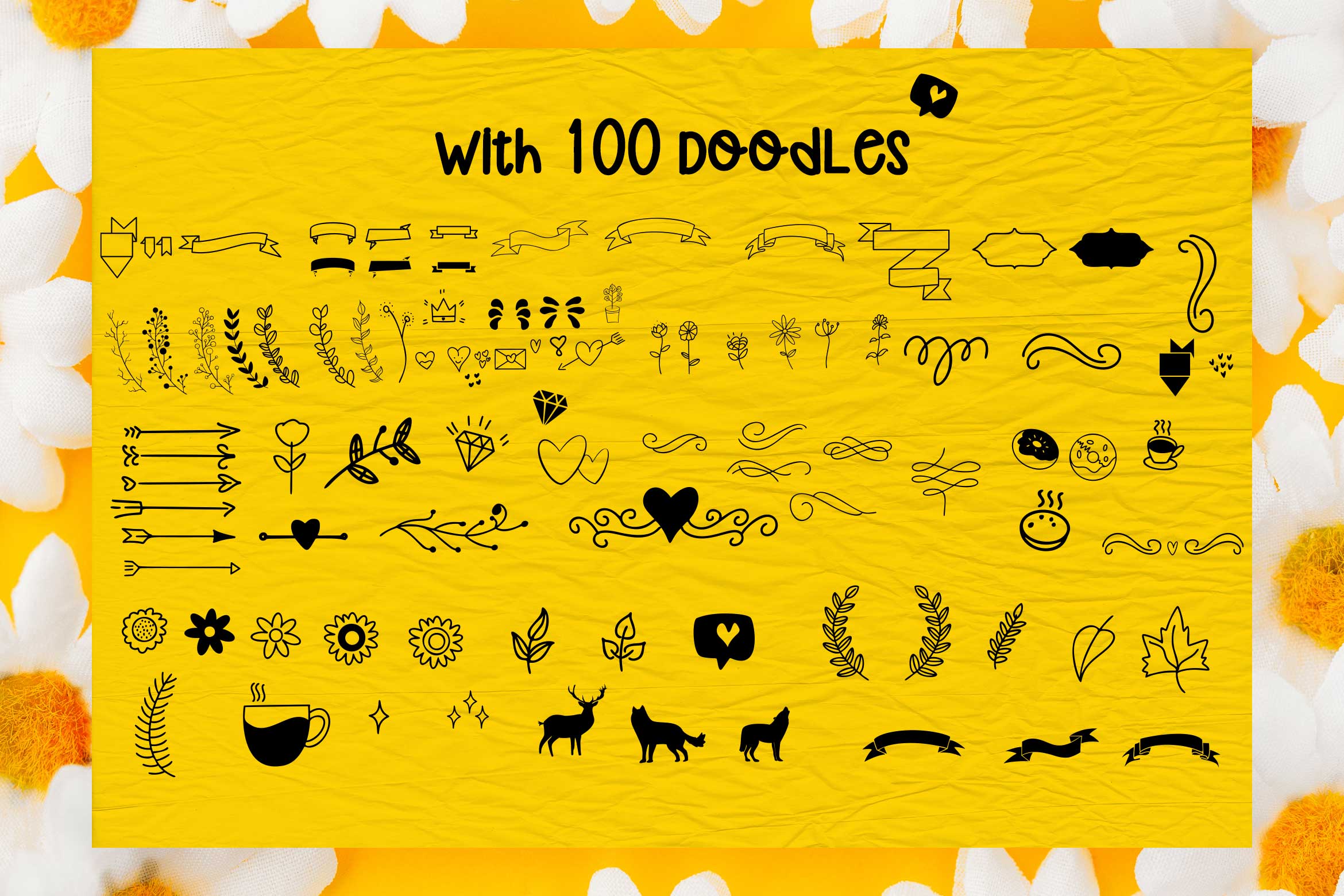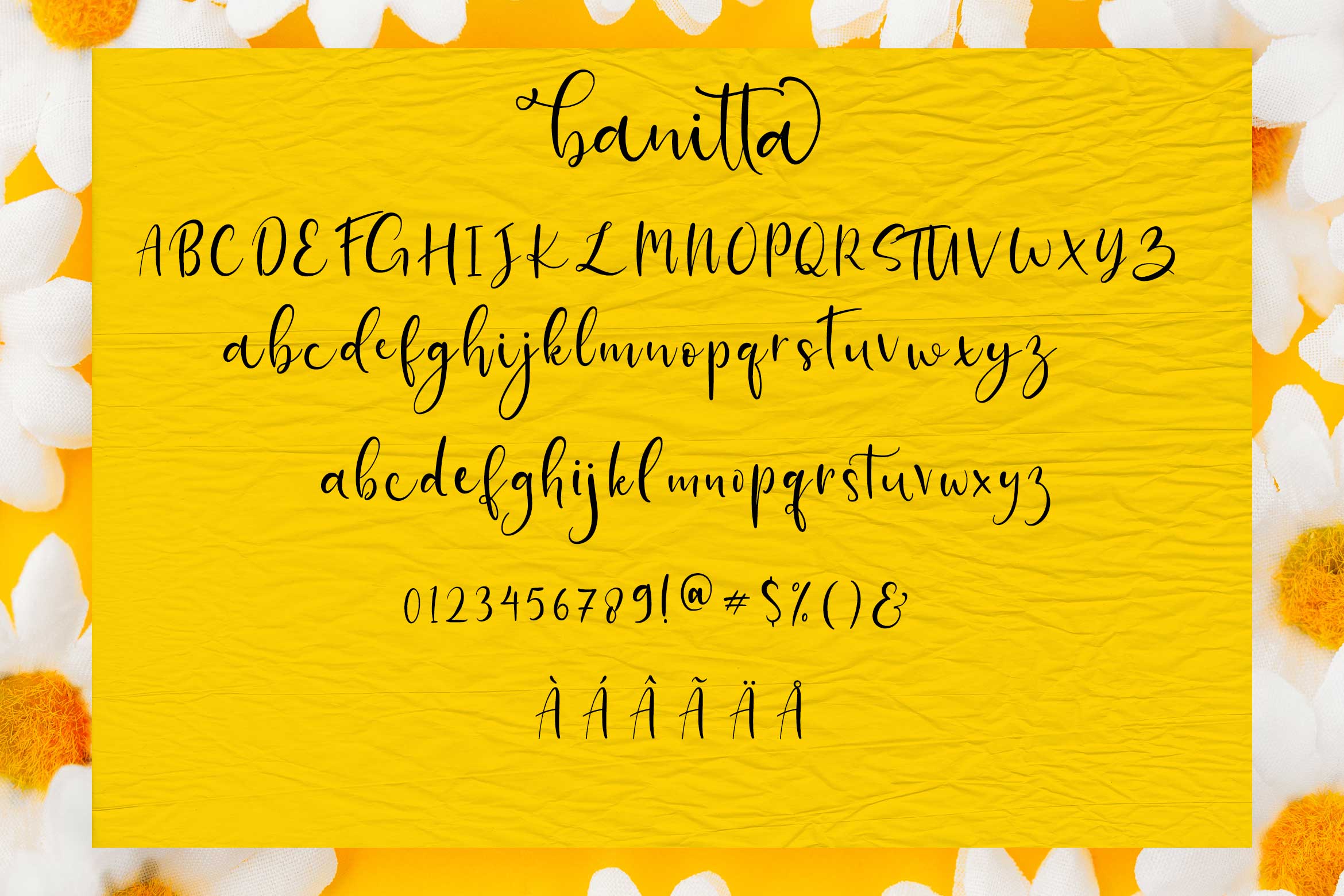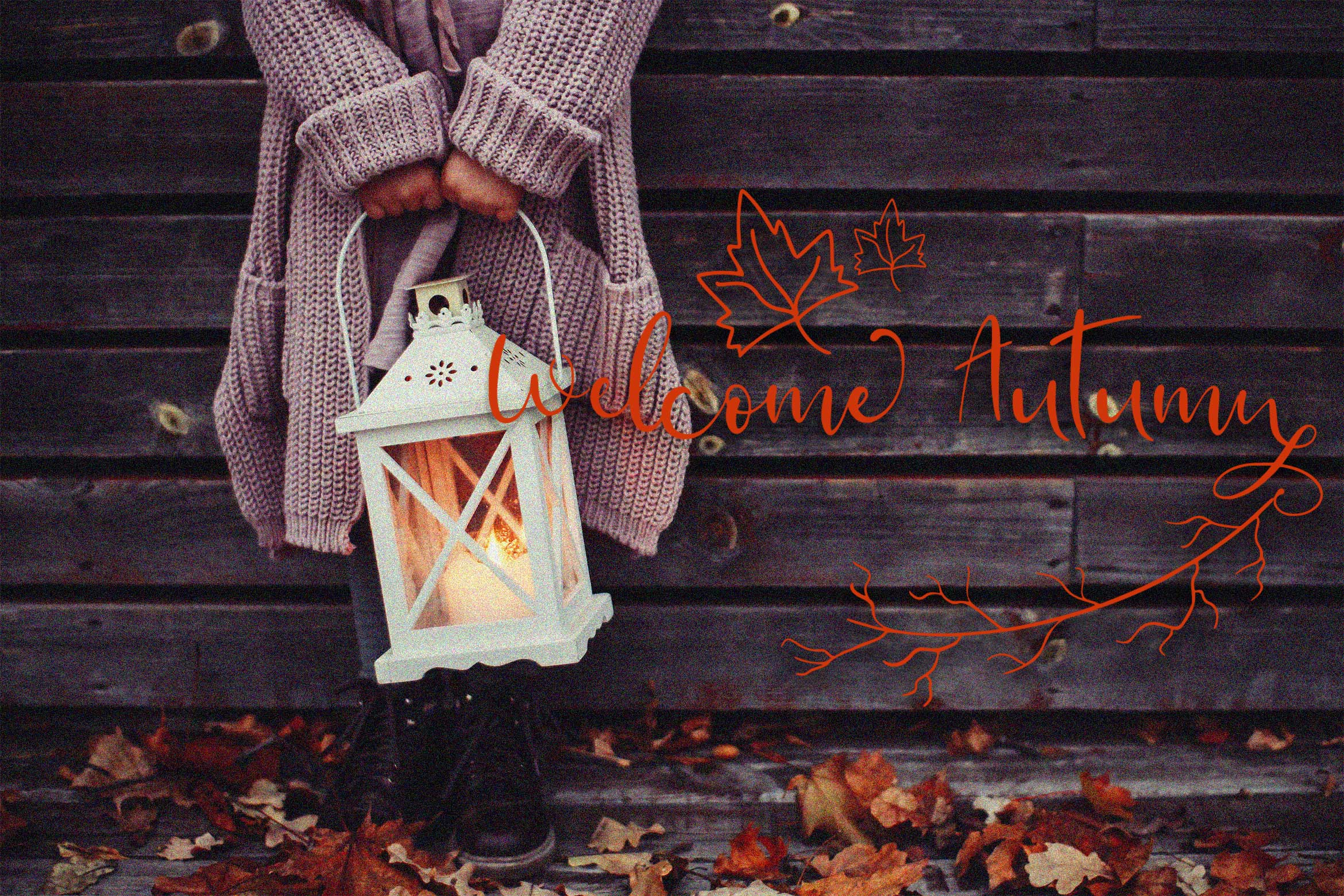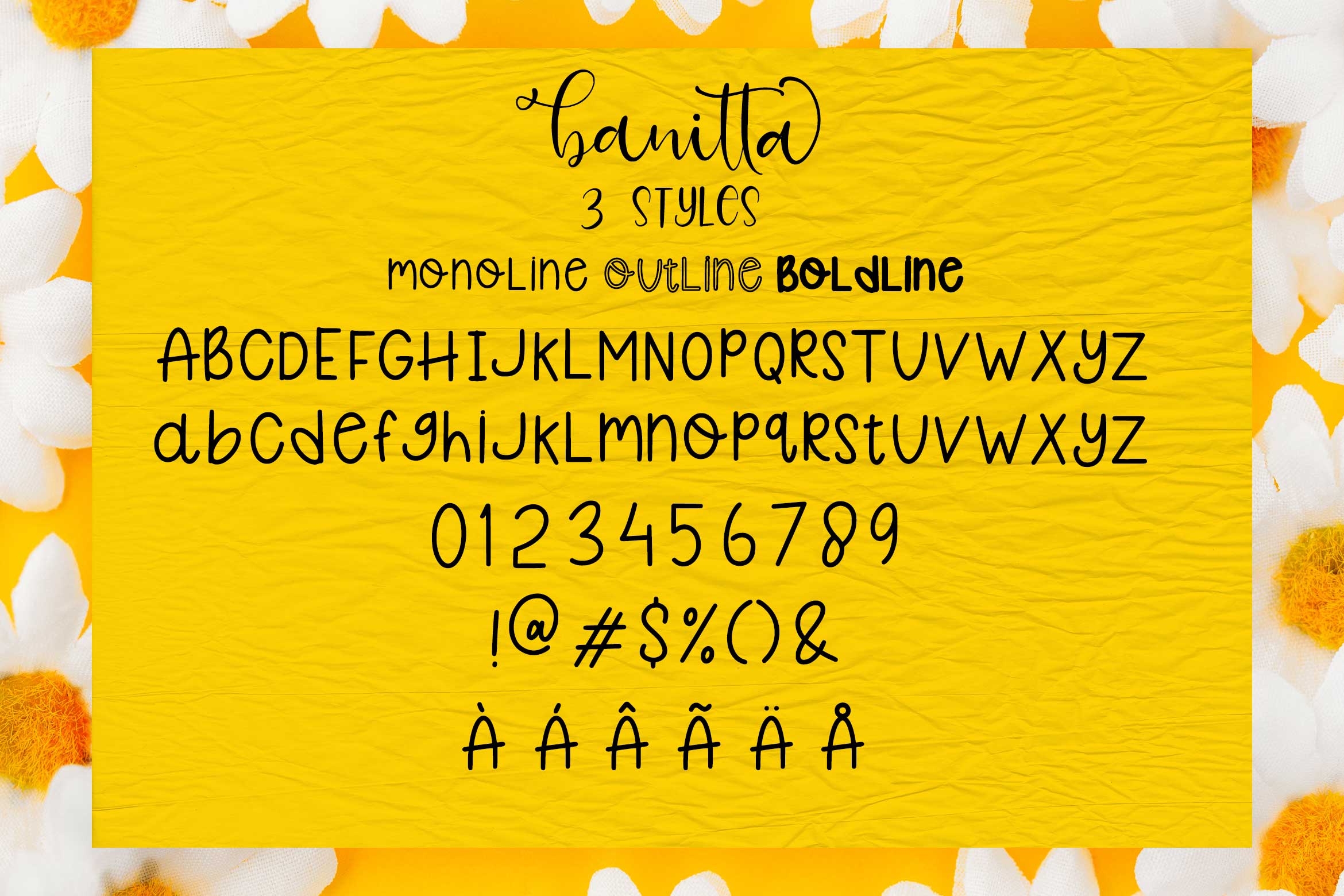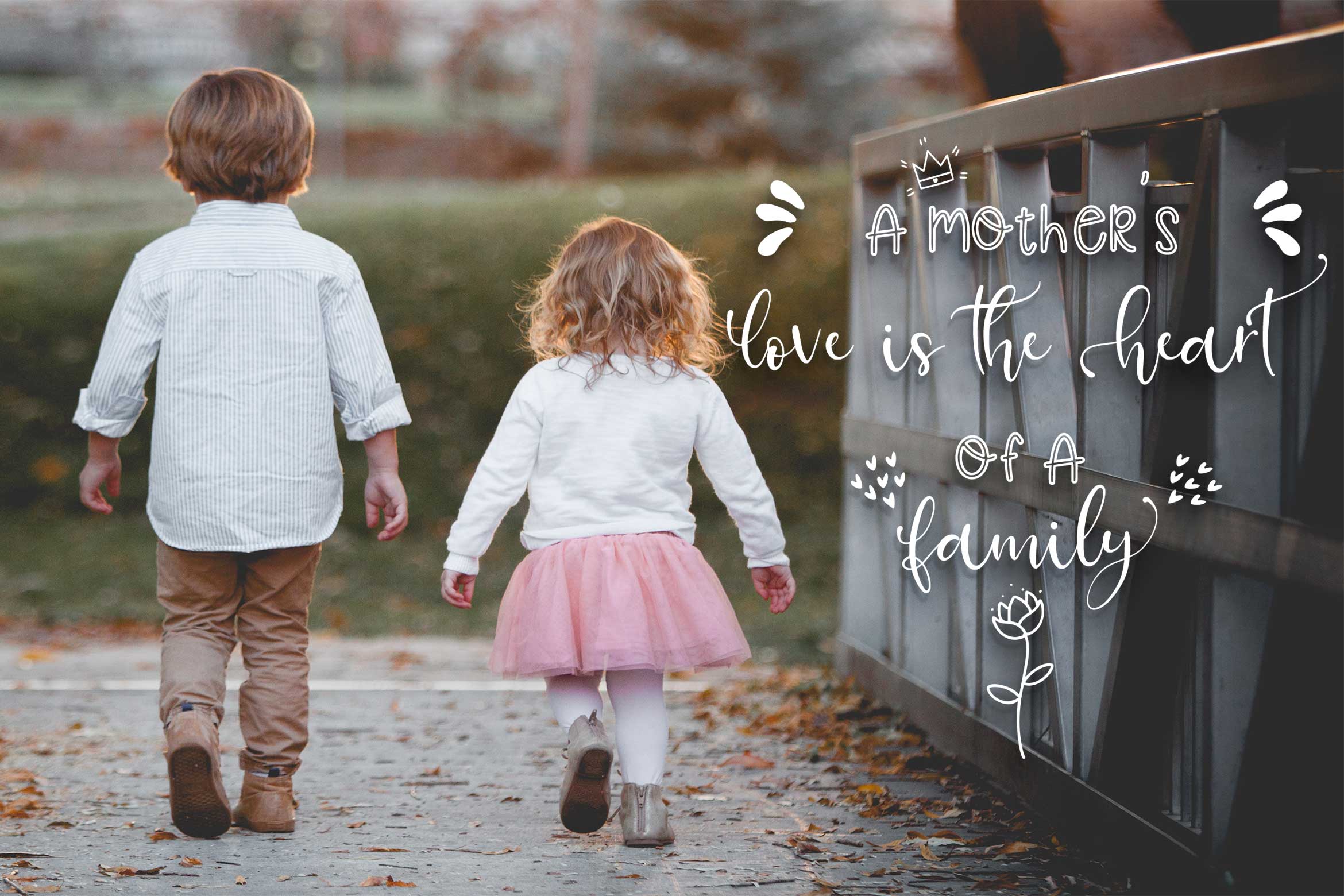
About Banitta Font Trio & Extras
Banitta Font Trio & Extras includes full set of lovely uppercase and lowercase letters, multilingual symbols, numerals, punctuation. is perfect fo you up coming projects. such as modern invitation design, branding stationery design, wedding, birthday, qoute, craft, etc and any projects. FEATURES TTF/OTF/ Alternate Characters Uppercase and Lowercase letters Numbering and Punctuations Multilingual Support Works on PC or Mac Simple Installation Support Adobe Illustrator, Adobe Photoshop, Adobe InDesign, also works on Microsoft Word